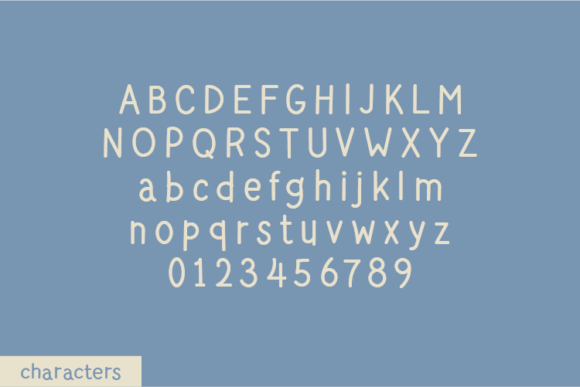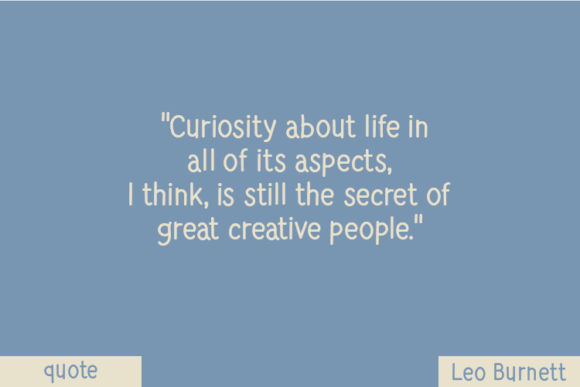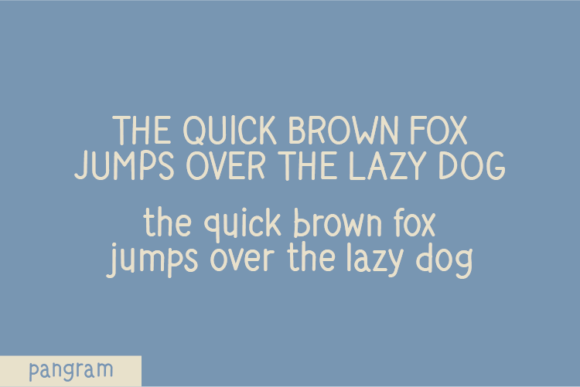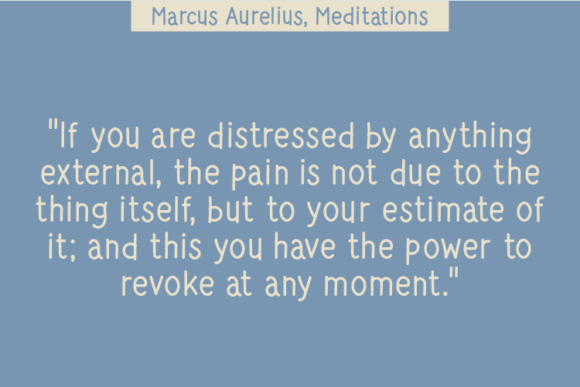
The Joy of Handwritten Type: Unpacking the Cheerful Font
Who hasn’t scribbled down a to-do list, a love note, or a quote from their favorite book in a beautiful, flowing handwriting script? It’s moments like these that make us appreciate the beauty of handwritten typefaces. For designers, capturing the essence of handwritten text can be a challenge, but what if we told you there’s a font that embodies the spirit of handwritten charm without compromising on style?
Meet the Cheerful Font, a natural handwritten font that stays true to its organic roots. Designed to add a personal touch to quotes, notes, tees, and product designs, this font is a game-changer for designers looking to infuse their work with a dash of whimsy and warmth.
With its unique, unaltered character indentations, the Cheerful Font offers a refreshing alternative to traditional fonts. Its value lies in its ability to evoke emotions and create connections with the viewer, making it a must-have for designers who want to add a little extra oomph to their designs.
Cheerful Font Key Features
- Font Family: Cheerful Font is a unique, hand-drawn sans-serif font family designed to evoke feelings of happiness and friendliness.
- Character Set: The font family includes a wide range of characters, including uppercase and lowercase letters, numbers, punctuation marks, and special characters.
- Unique Characteristics: The font’s playful, hand-drawn style and varied line widths create a visually appealing and engaging reading experience.
Designer Review: Cheerful Font
I recently had the chance to work with the “Cheerful Font” and I must say it’s a unique find. Here are my thoughts on what works well and what doesn’t.
- Playful, Whimsical Feel: Cheerful Font’s primary strength lies in its ability to evoke a carefree, playful atmosphere. It’s perfect for branding and design projects that require a lighthearted tone.
- Variety of Styles: The font comes in multiple styles, each with its own distinct personality. This variety makes it suitable for a wide range of applications, from digital to print.
- High-Quality Typography: The font’s typography is well-crafted, with clear, readable letterforms and a balanced weight distribution.
- Overly Flashy: While Cheerful Font’s playfulness can be a strength, it can also be a weakness. The font’s bold, eye-catching style may not be suitable for all projects or audiences.
- Limited Customization: I found the font’s customization options to be somewhat limited, making it challenging to achieve a specific look or feel.
Overall, Cheerful Font is a solid choice for designers looking to add some personality to their projects. While it has its limitations, its unique style and versatility make it a valuable addition to any design toolkit.
Getting the Most Out of Cheerful Font
Here are some tips for getting the most out of the Cheerful Font:
Use it for titles and headings to add a touch of whimsy and playfulness to your designs.
Pair it with bold or italic fonts to create a striking contrast.
Experiment with different font sizes and colors to create a unique visual effect.
The Cheerful Font is ideal for:
Designing children’s products and educational materials.